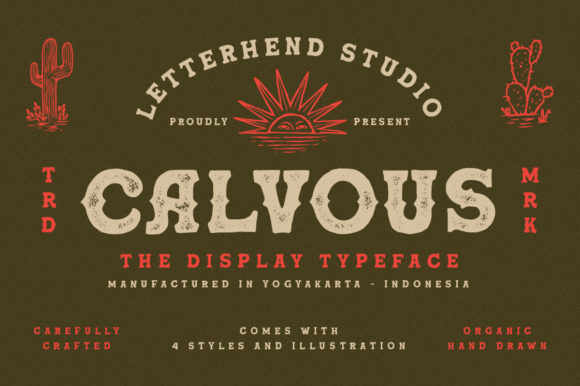
Introducing Calvous Font, a remarkable serif font family created by letterhend. With its distinct styles and raw serif elements, Calvous Font is the perfect choice for adding a touch of classic western style to your next design project.
Calvous Font offers you the opportunity to elevate your designs with its captivating and versatile collection of fonts. Each font within this remarkable family brings a unique personality and charm, allowing you to create eye-catching and impactful designs that stand out from the crowd.
Whether you're working on a logo, branding, invitations, or any other creative project, Calvous Font has the perfect style to suit your needs. Its versatility allows you to effortlessly switch between fonts and styles, ensuring that your designs are always fresh and captivating.
The first style in the collection is Calvous Regular, a timeless serif font that exudes elegance and sophistication. Its clean lines and balanced proportions make it the ideal choice for creating a professional and refined look.
For those seeking a more playful and energetic vibe, Calvous Italic is the perfect fit. This italicized font adds a touch of dynamism and movement to your designs, making them visually engaging and captivating.
If you're looking to add a touch of vintage charm to your projects, Calvous Rough is the font for you. Its distressed and textured appearance brings a rustic and weathered feel, evoking a sense of nostalgia and authenticity.
Last but not least, Calvous Outline offers a unique and contemporary style. Its outlined letterforms create a modern and trendy look, making it ideal for bold and impactful designs.
With Calvous Font, the possibilities are endless. Let your creativity run wild and explore the countless ways in which you can utilize this remarkable font family. Whether you're aiming for a classic, playful, vintage, or contemporary look, Calvous Font has got you covered.